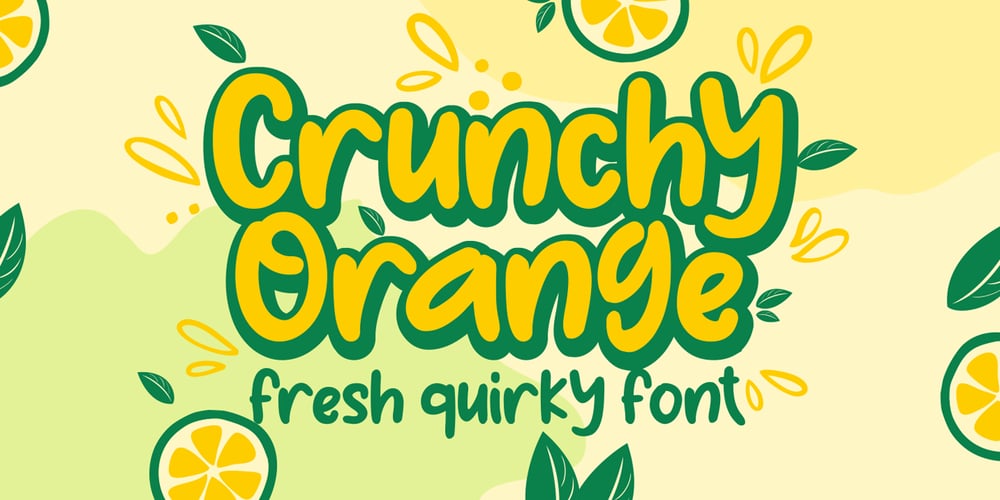
Crunchy Orange Font Family was designed by Raditya Putra Pratama and published by Raditya Type. Crunchy Orange contains 1 styles and family package options. Crunchy Orange is a picture of fun, uniqueness, and authenticity. This eye-catching handwritten font will turn your creative ideas into a standout. It will take your various design projects to the highest level, be it branding, headings, wedding designs, invitations, signatures, logos, labels, and more!